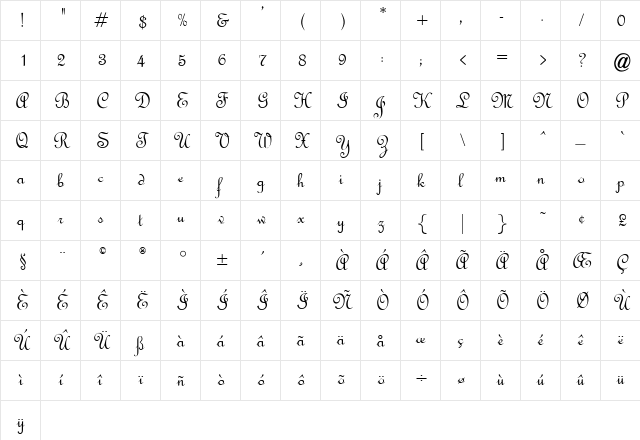
OPTIFrench Regular
Design Context for OPTIFrench Typeface
OPTIFrench is a composed and adaptable typeface that performs quietly and consistently across a wide range of design contexts.
Pro Tip: Use OPTIFrench in both headline and body roles to test its range before committing to a single application.